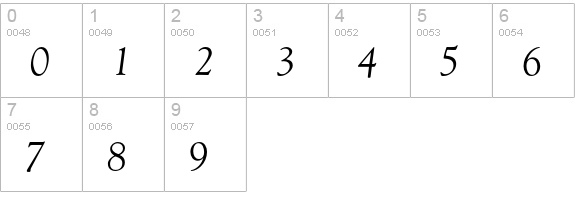
Goudy Old Style Italic Font Details
Goudy Old Style Italic is a distinctive, italic variant in the Goudy typeface family \xE2\x80\x94 well suited to design and typography projects.
Goudy Old Style Italic is a classic and elegant font that exudes sophistication and charm. Its slanted, italicized design adds a touch of flair to any text, making it perfect for conveying a sense of elegance and timelessness. The flowing curves and delicate serifs of Goudy Old Style Italic make it a versatile choice for various design projects, from invitations to branding materials. What makes Goudy Old Style Italic even more appealing is that it is available for free download at FontsMarket.com. This means that you can easily access this beautiful font and use it in your projects without any cost. Whether you're working on a personal project or a professional design, Goudy Old Style Italic offers a touch of sophistication that will elevate your work to the next level. Download it today and add a touch of timeless elegance to your designs.